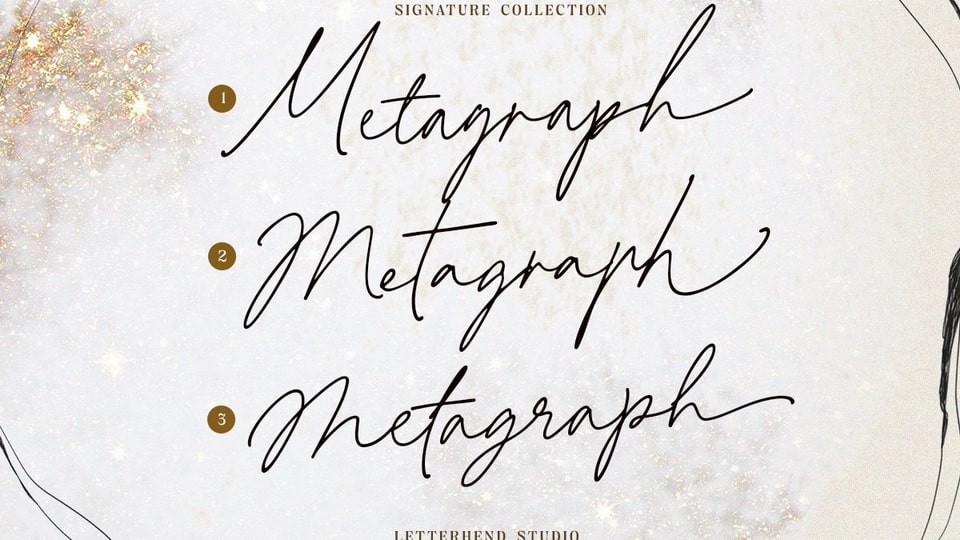
Metagraph Font › Fontesk
Download Metagraph font, a beautiful signature script typeface based on manual hand writing. Metagraph font perfectly made to be applied especially in logo, fashion or any type of advertising purpose.